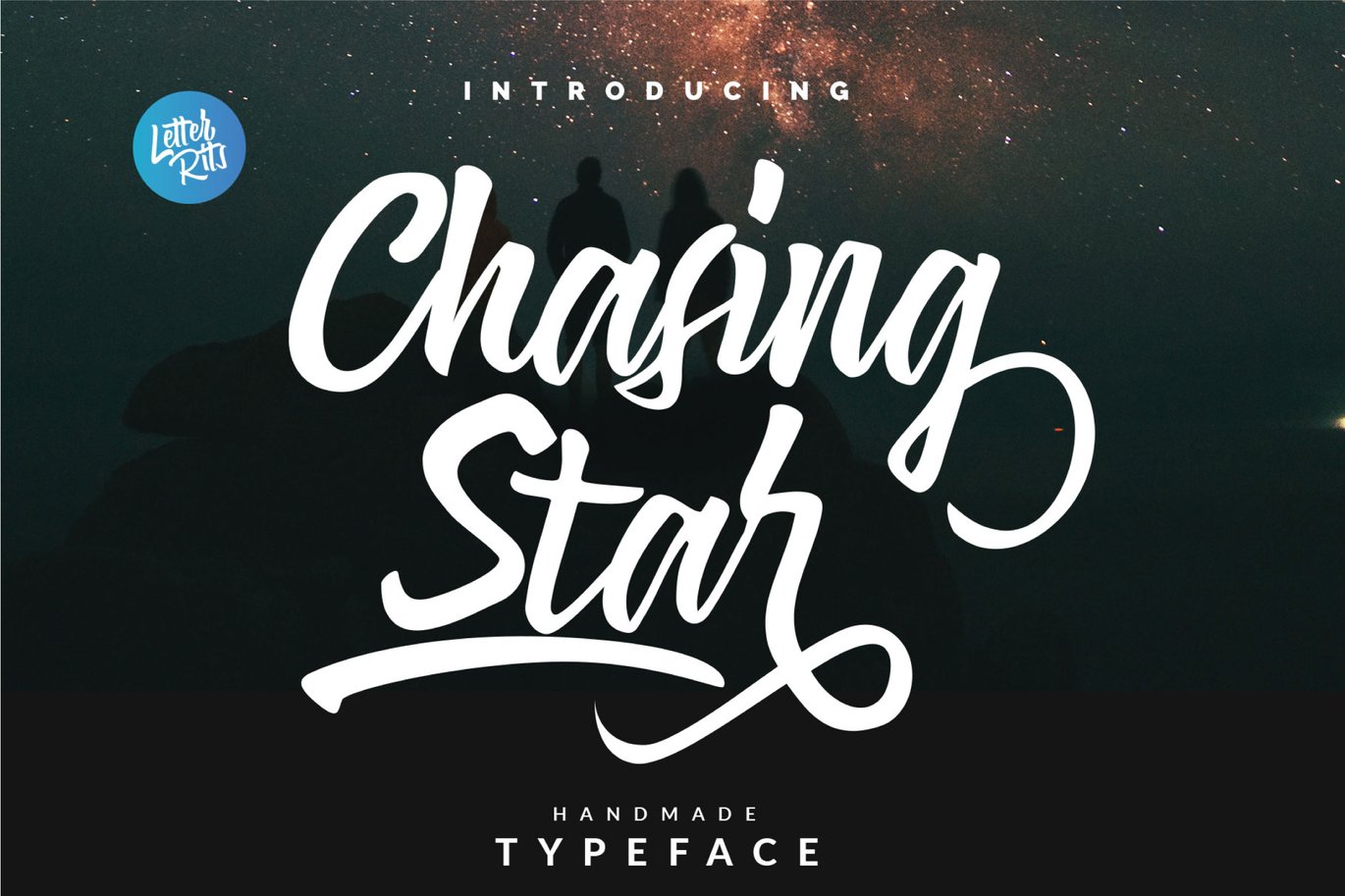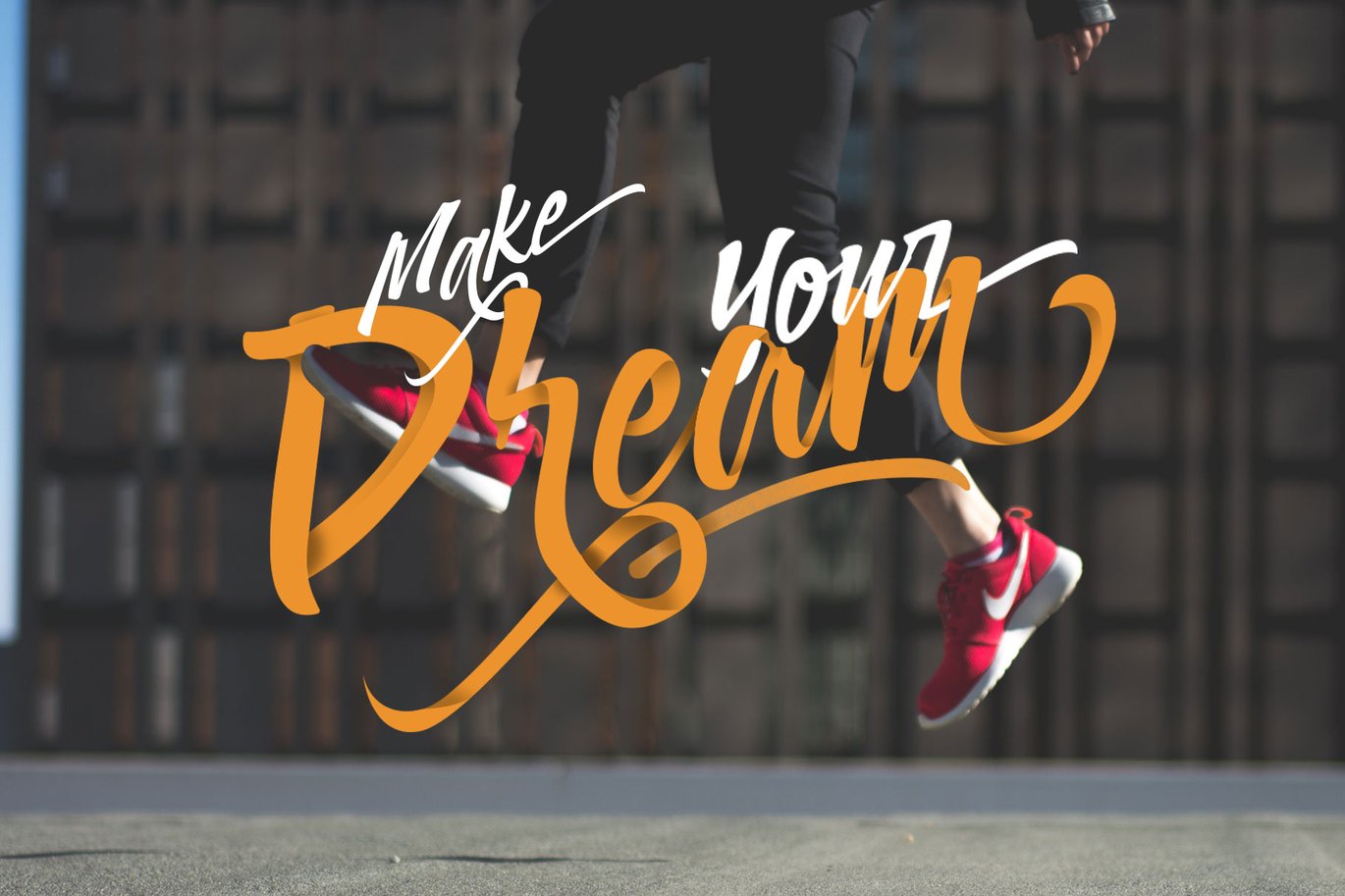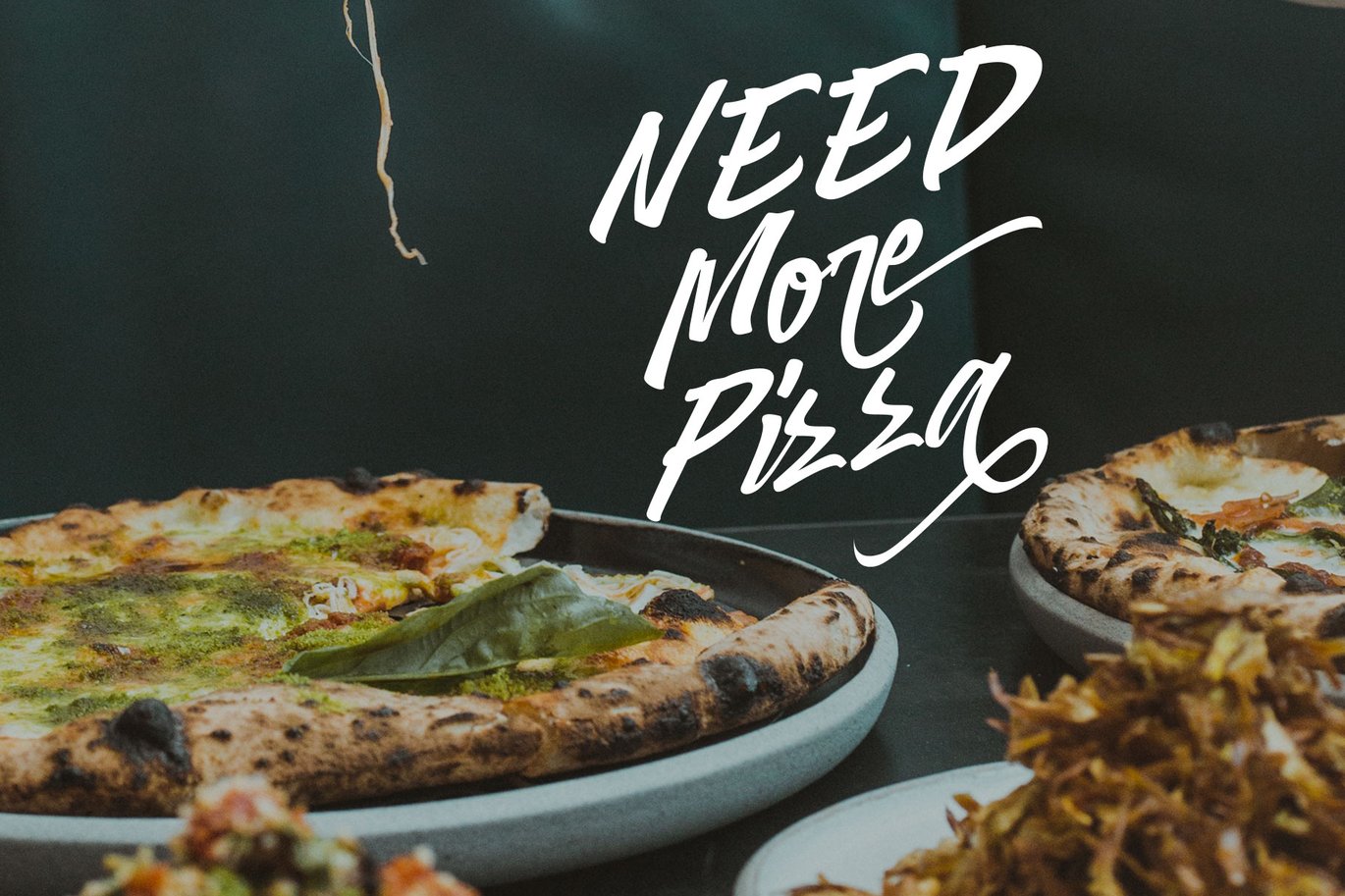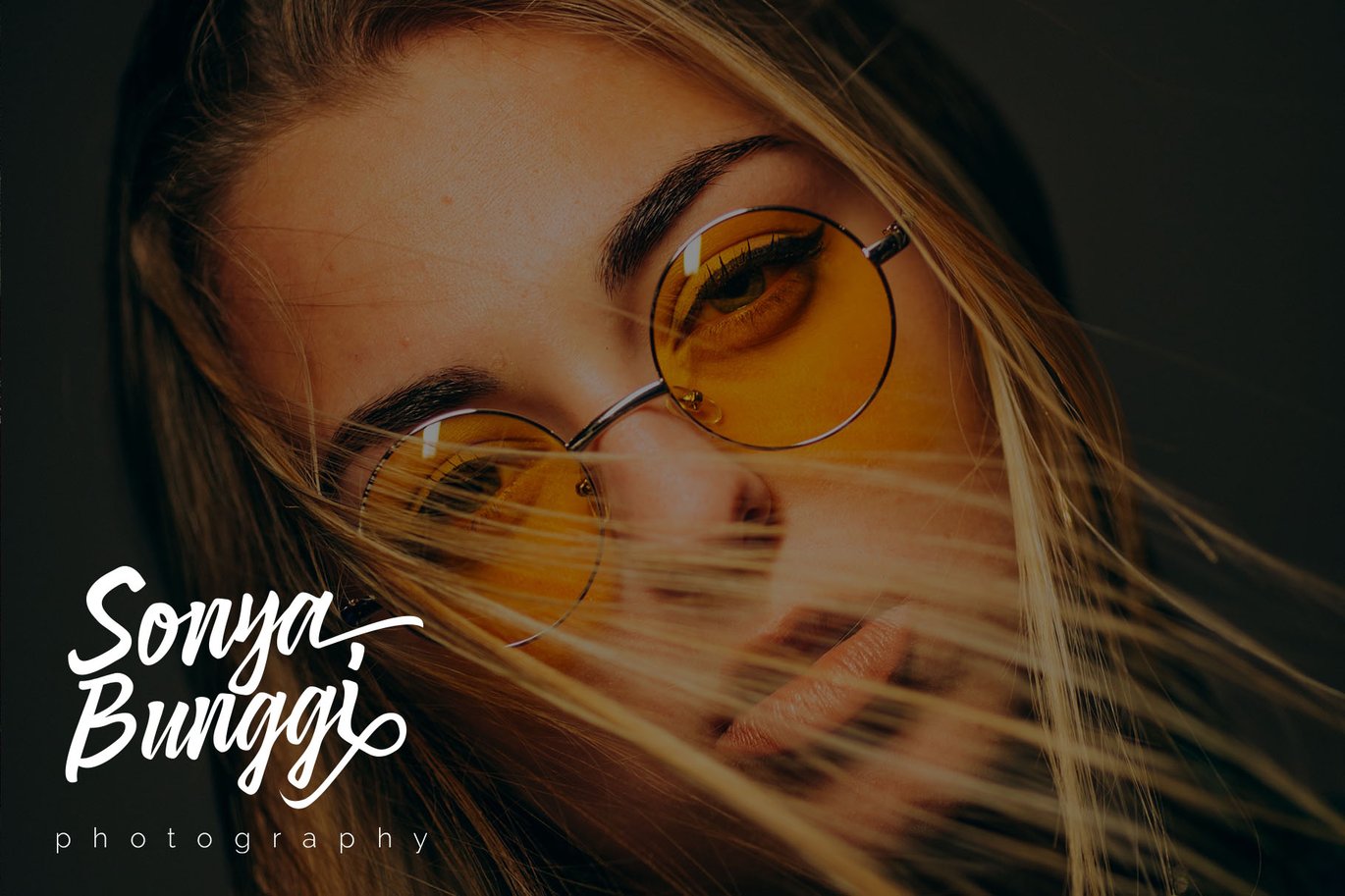
Chasing Star Font
This typeface includes all uppercase and lowercase letters, numerals, punctuation, symbols and multilingual characters.
ChasingStar Font is perfect for branding projects, homeware designs, product packaging – or simply as a stylish text overlay to any background image
Features : Basic Latin A-Z and a-z, Numbers, Symbols, PUA Encode, Allternatife A-Z and a-z Ligature Multilanguage Support
It works great for both modern and vintage style work. Feel free to give your project a fresh lettering style.